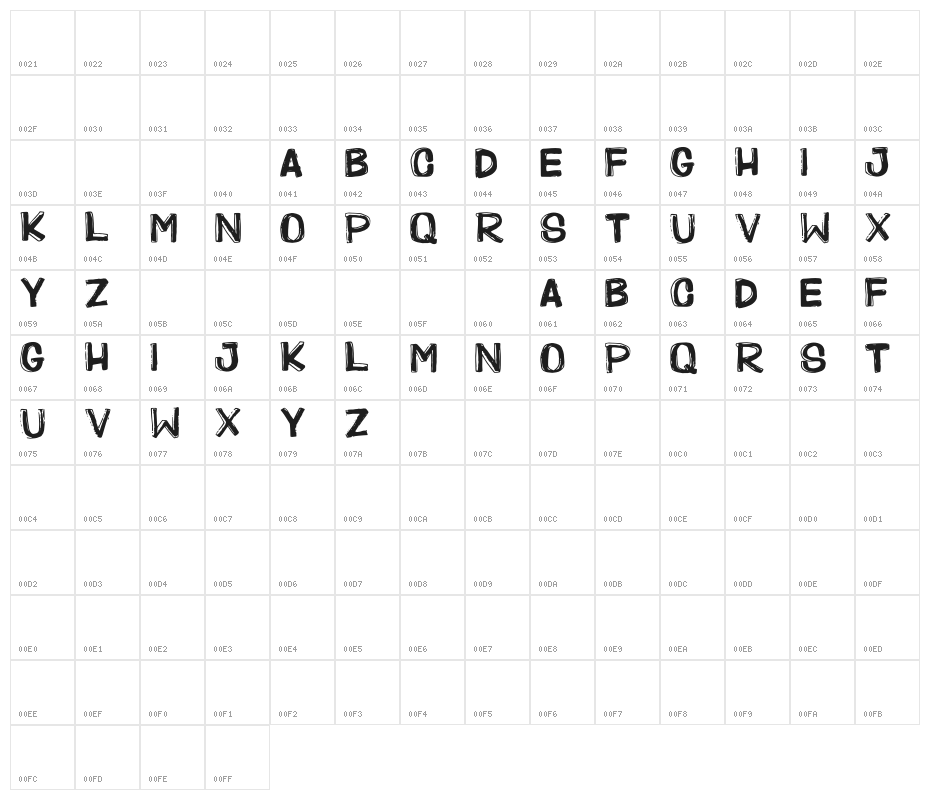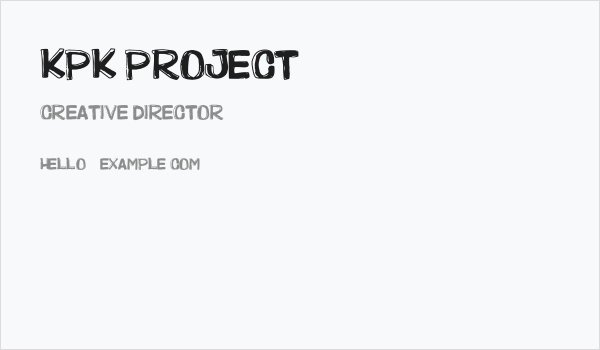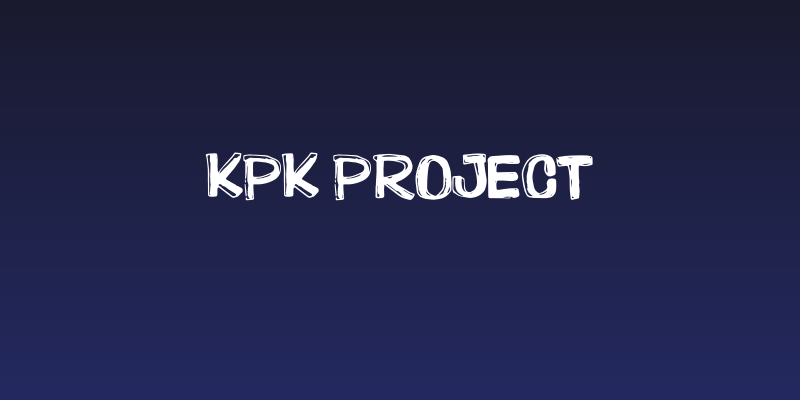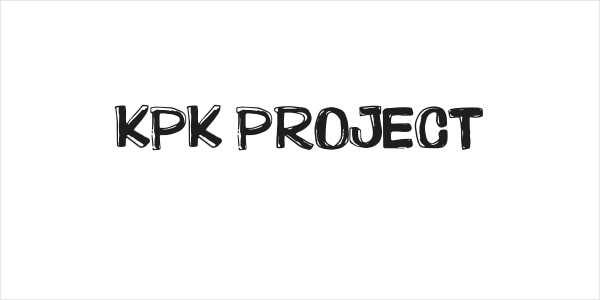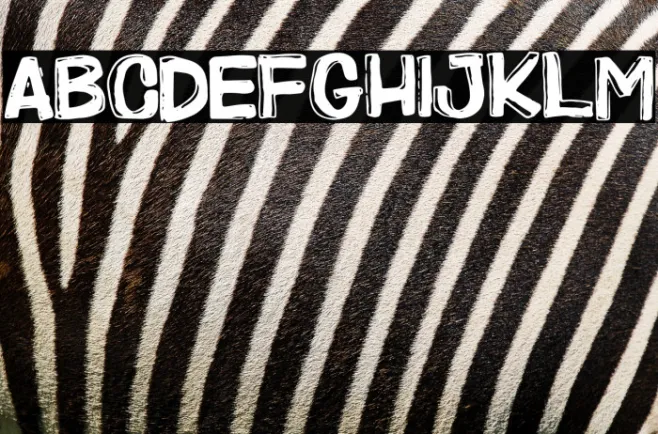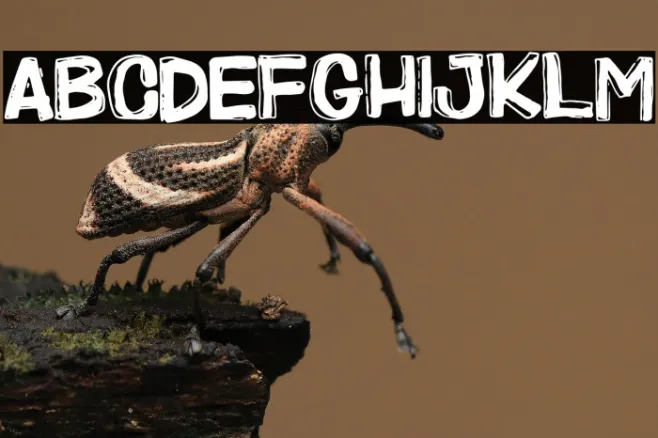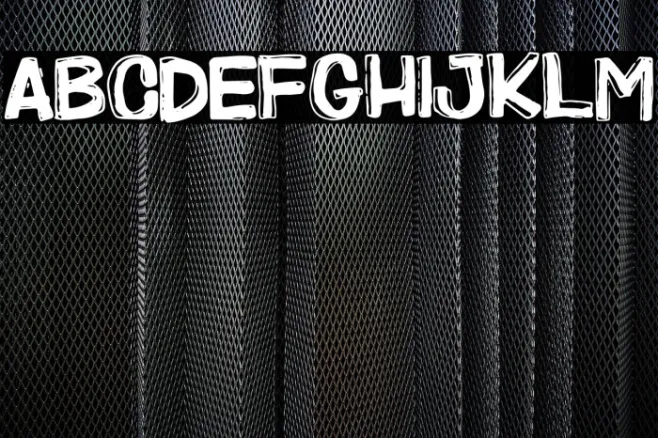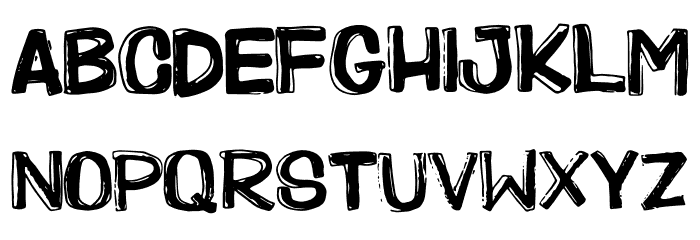
KPK Project Font
KPK Project Description
This font features a bold and playful style with a hand-drawn appearance. The letters are uppercase and have a slightly irregular, sketch-like quality, giving them a dynamic and energetic feel. The strokes are thick with a high contrast between the filled and outlined areas, creating a striking visual impact. The overall design is reminiscent of graffiti or street art, making it suitable for projects that require a bold and informal touch. The characters are well-spaced, ensuring readability while maintaining their artistic flair.
| Overall Style | Modern, Artistic |
| Proposed Projects | Ideal for posters, album covers, street art-inspired designs, and creative branding projects. |